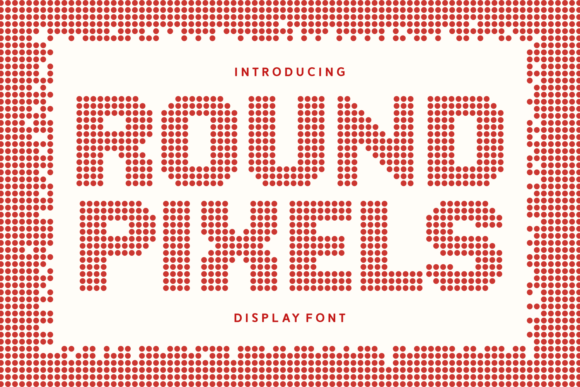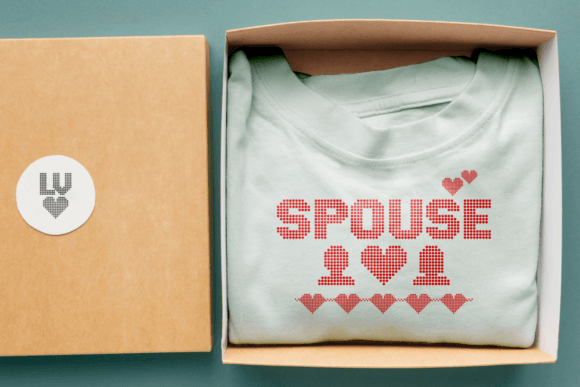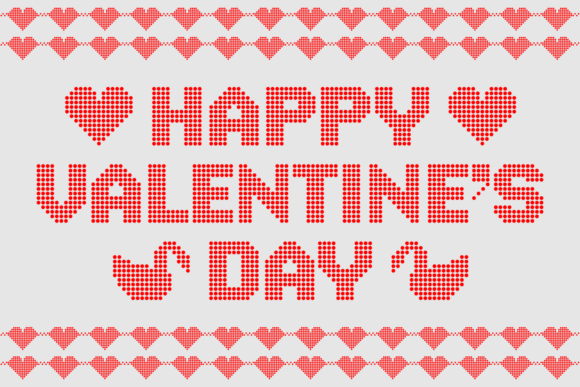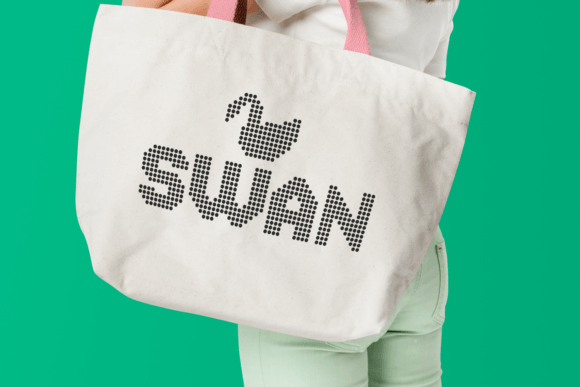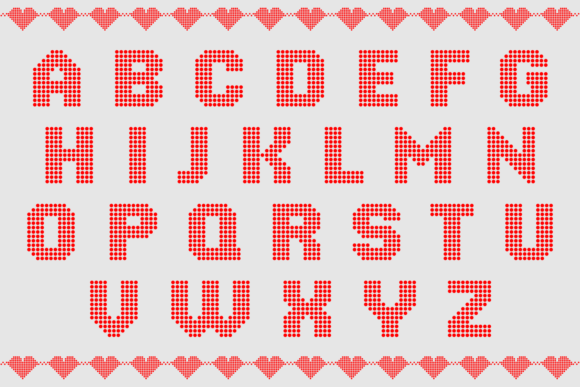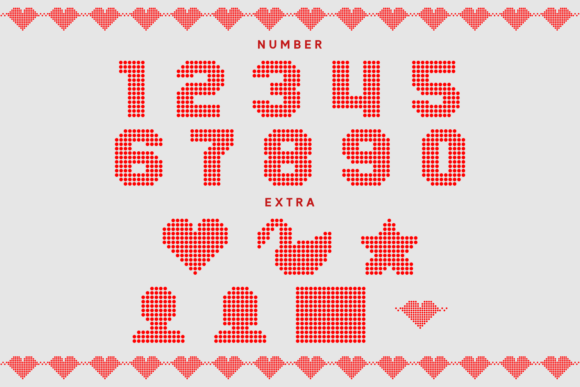
Round Pixels Font
Round Pixels is a cool and unique display font, suitable for a wide spectrum of applications. Whatever the topic, this font will be a wonderful asset to your font library, as it has the potential to enhance any creation.